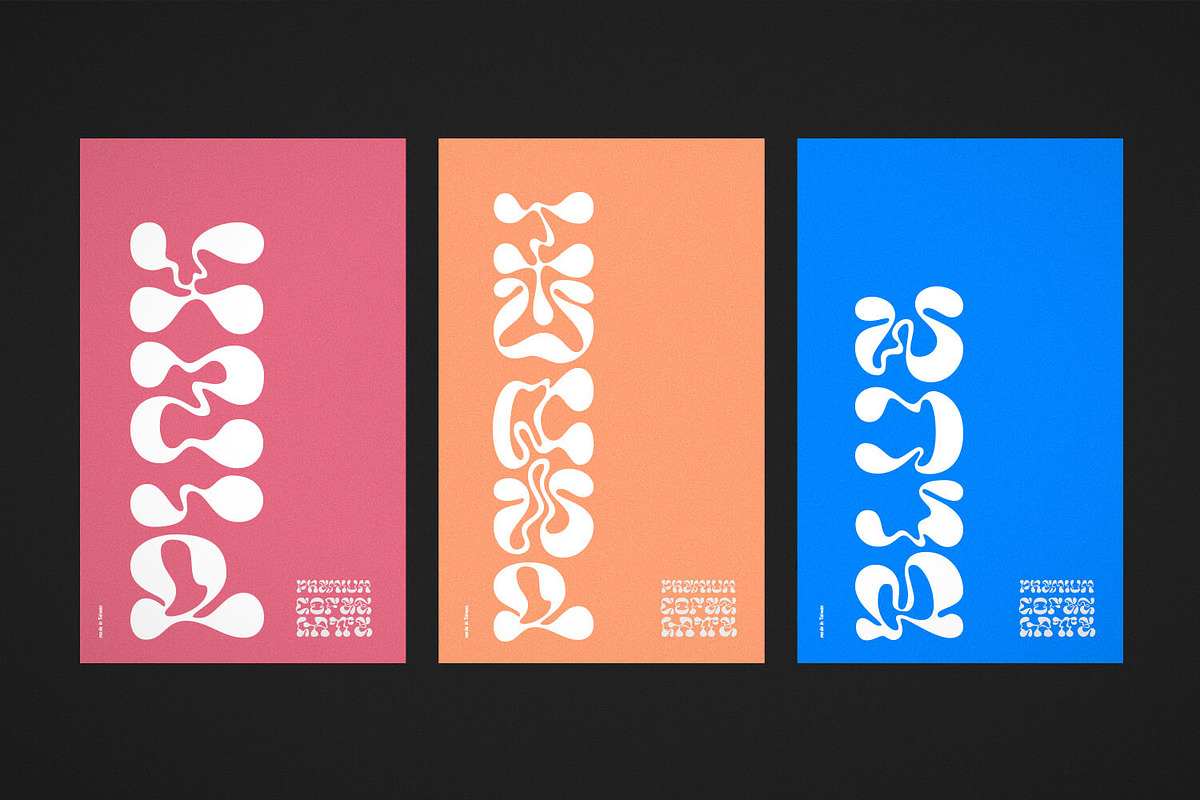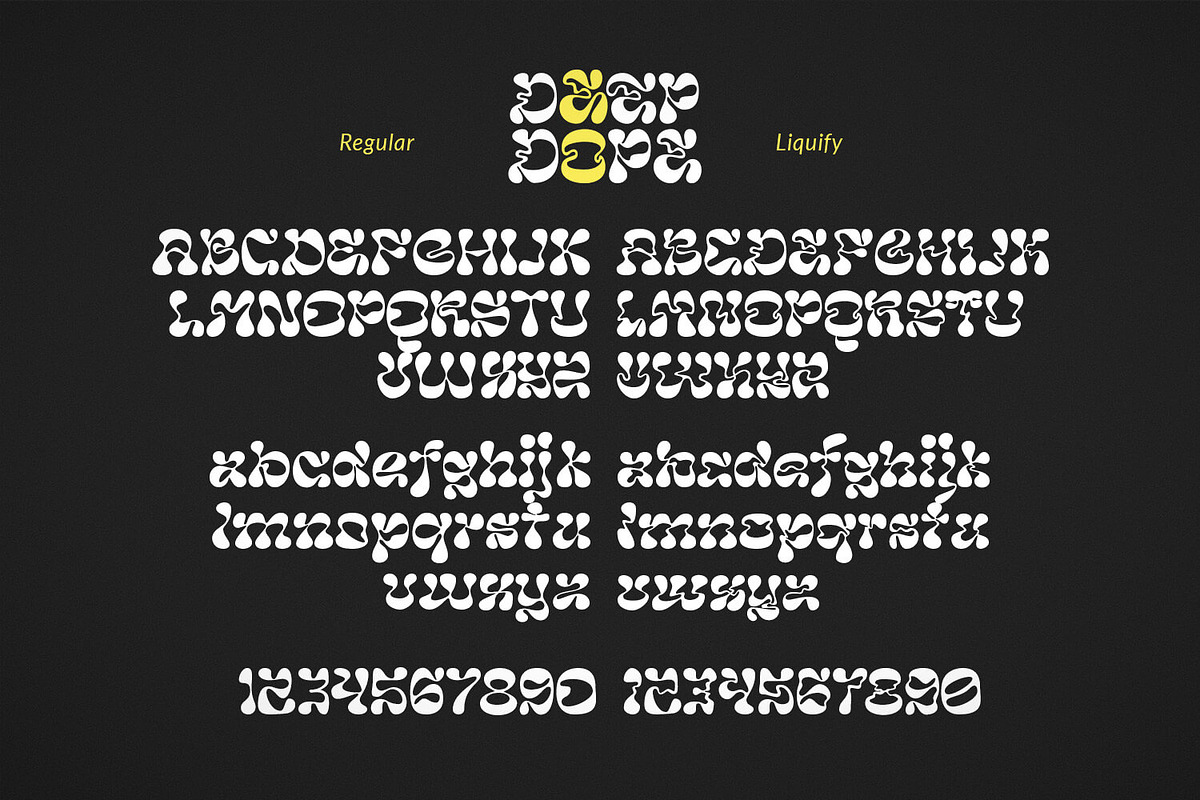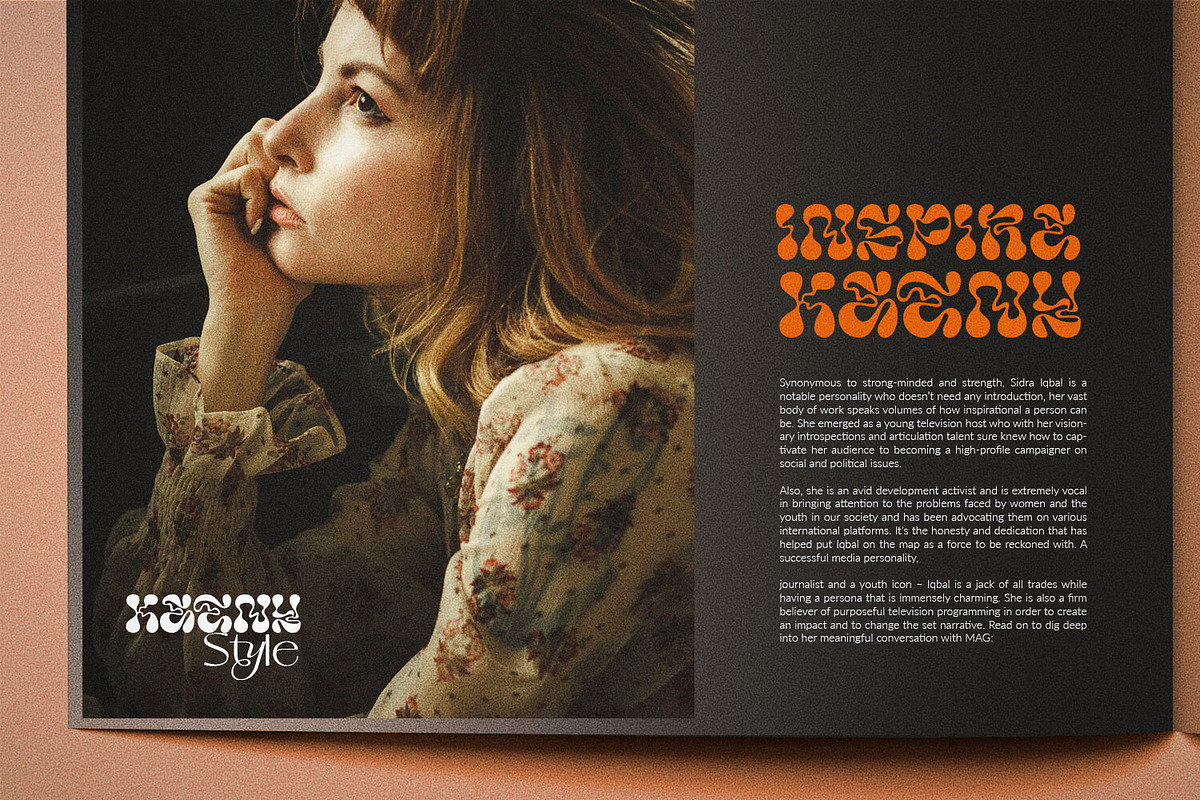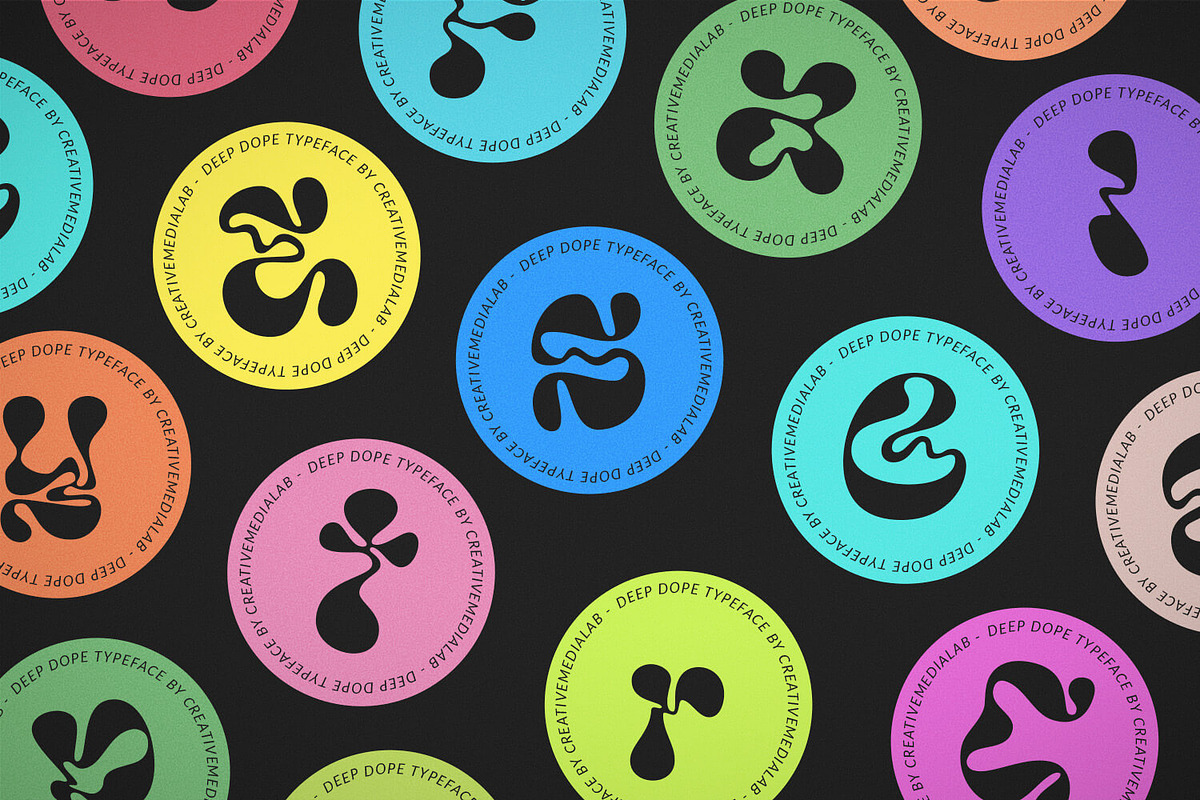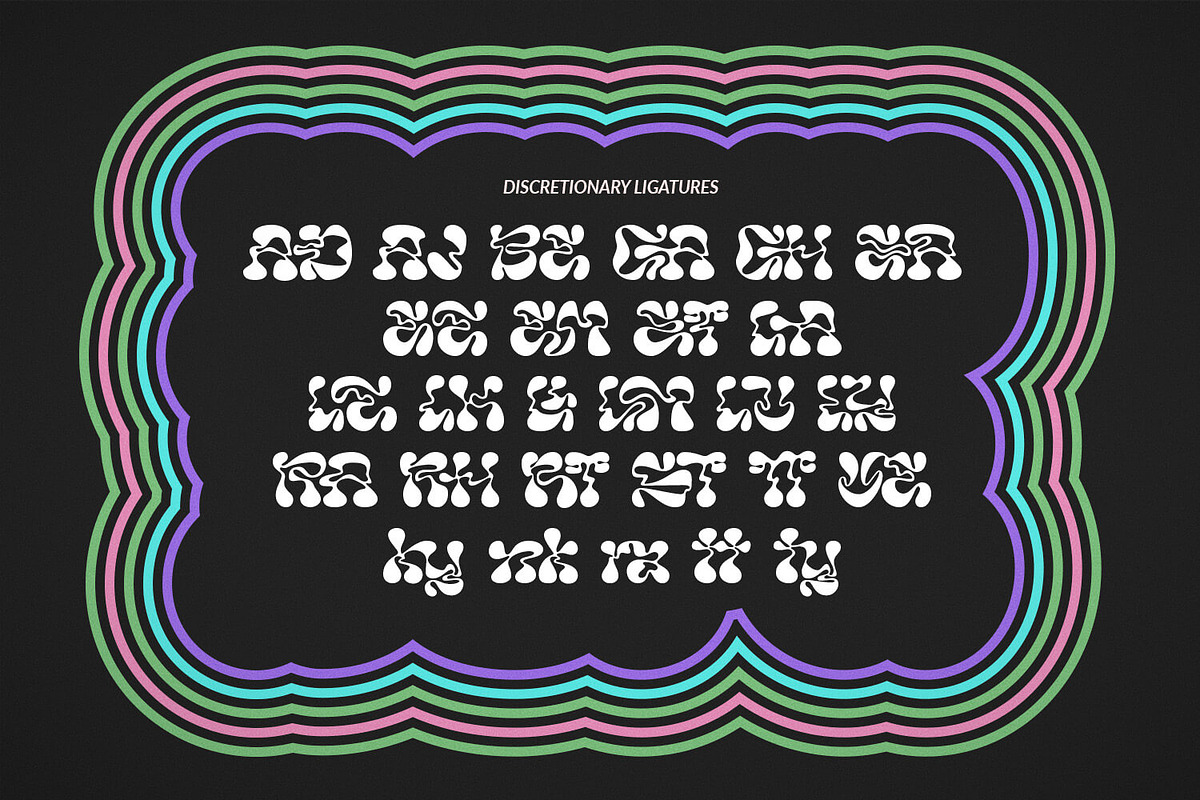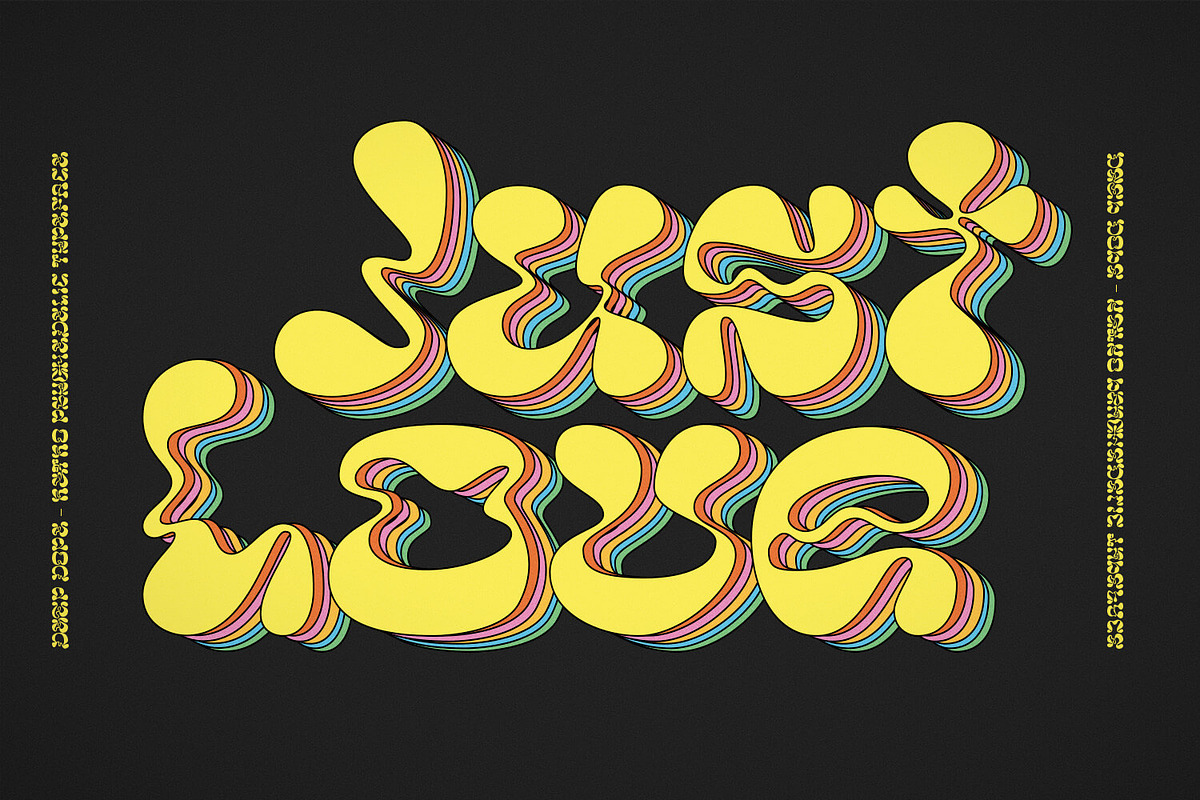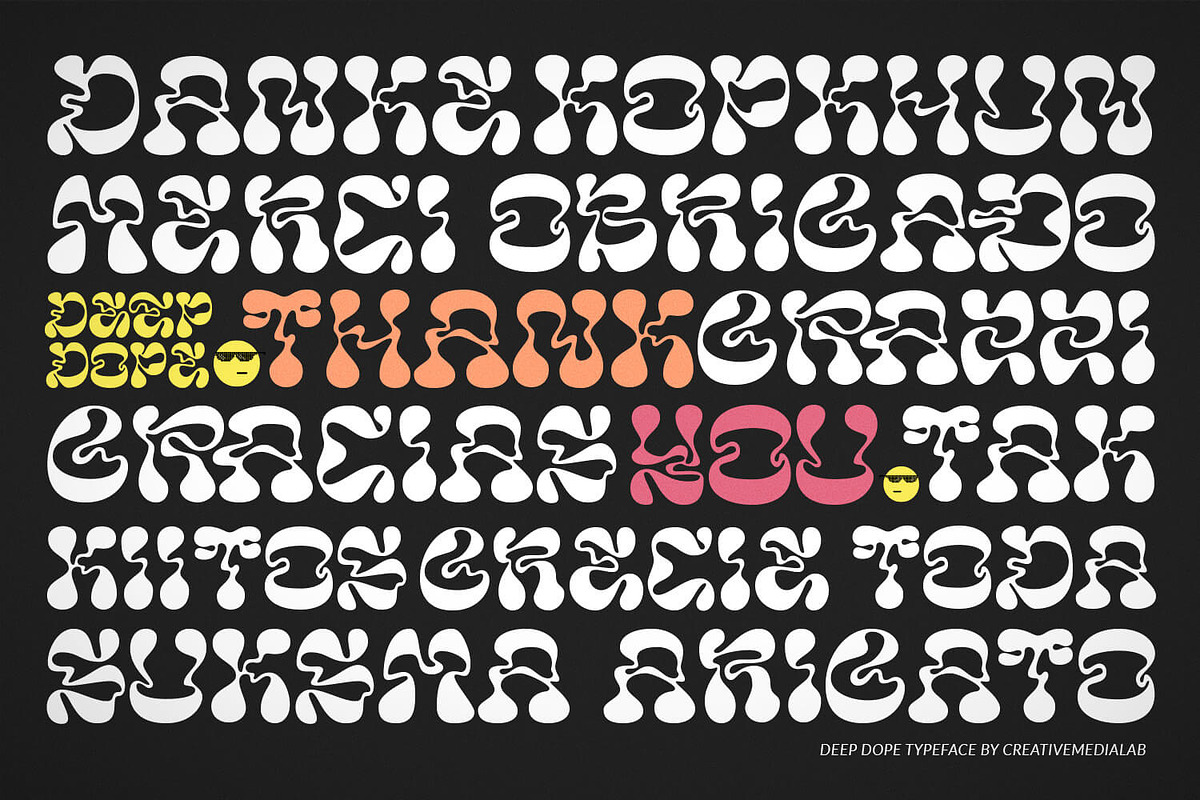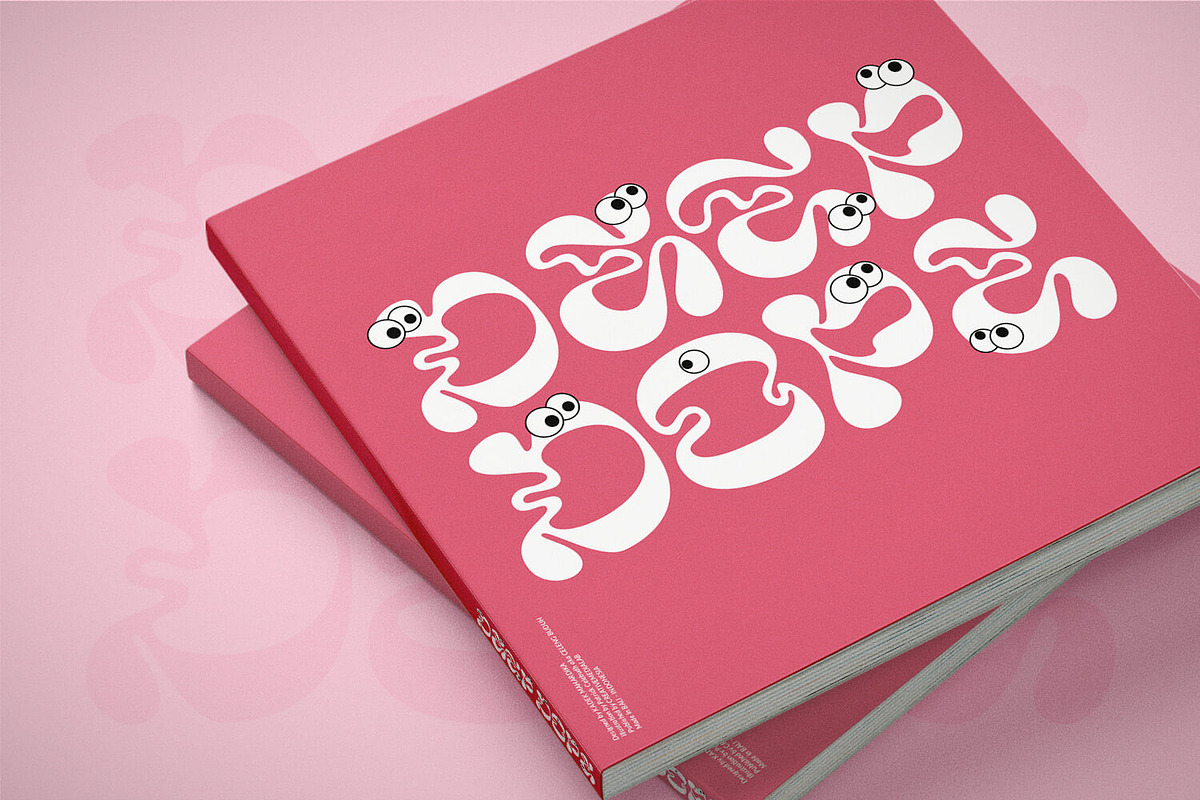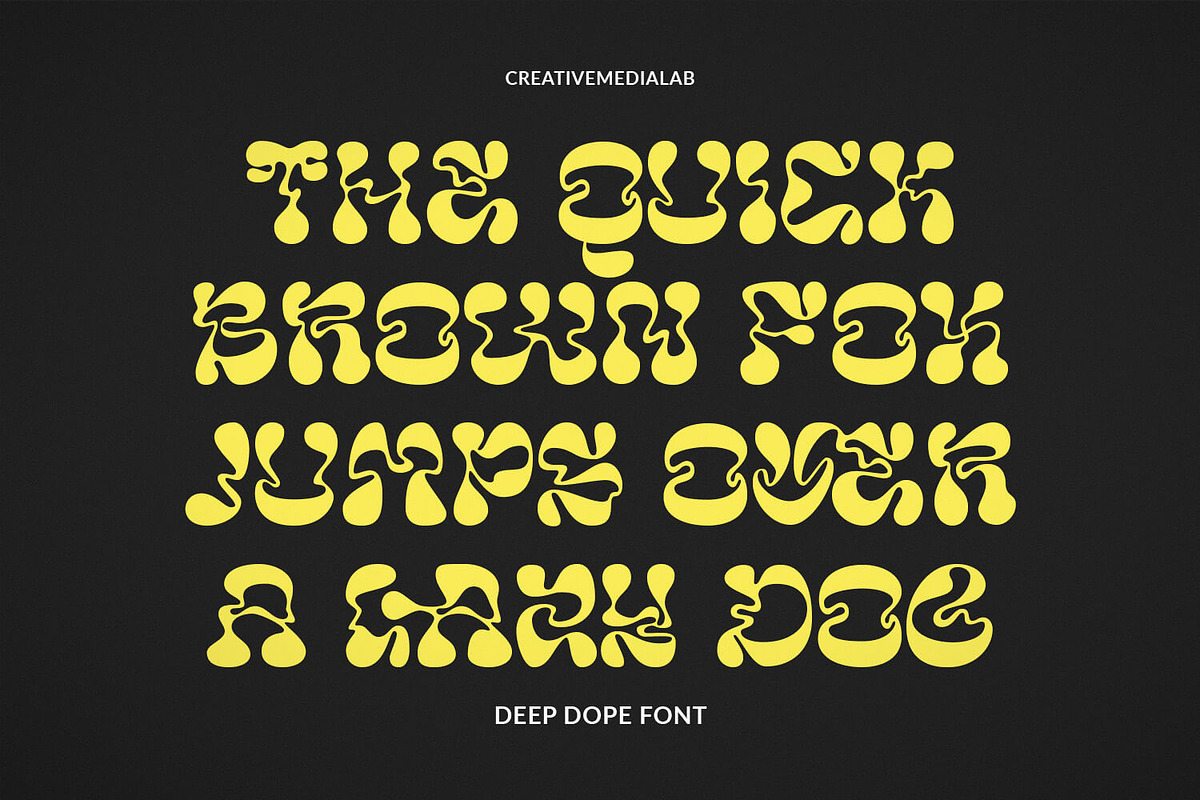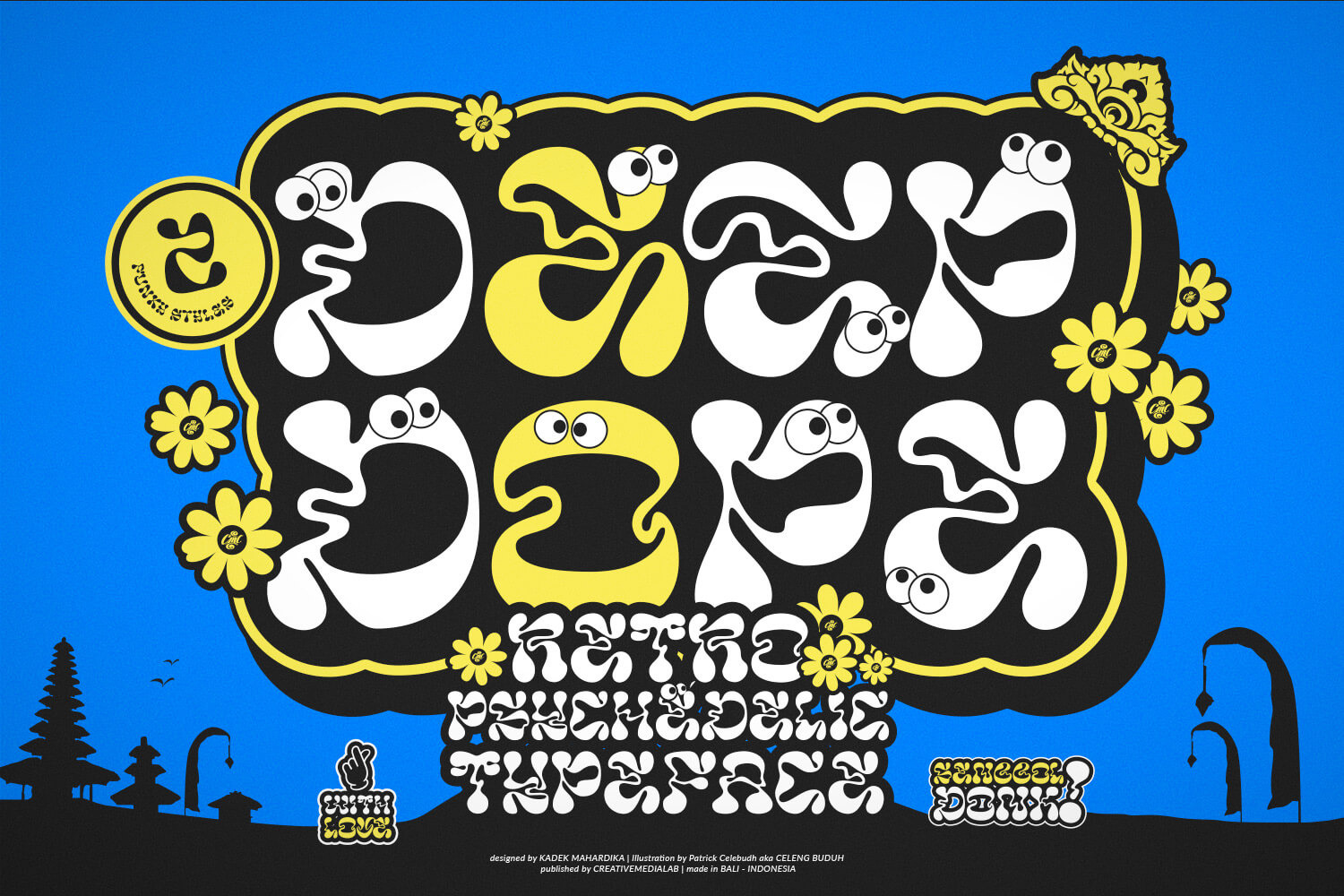
Deep Dope - Psychedelic Liquid Font
Introducing Deep Dope, another fun retro psychedelic-inspired typeface from creativemedialab. Its unique and consists of 2 styles Regular & Liquify. Perfect for summer theme design concept, branding, logo, and many more.